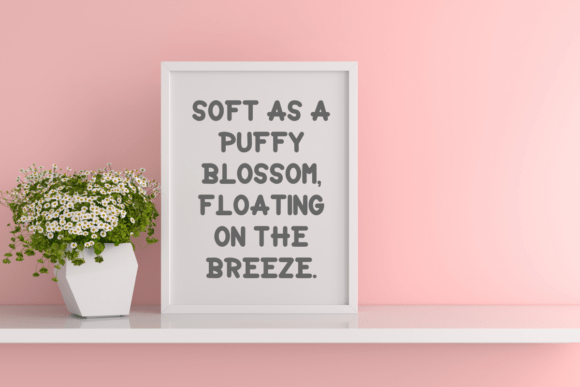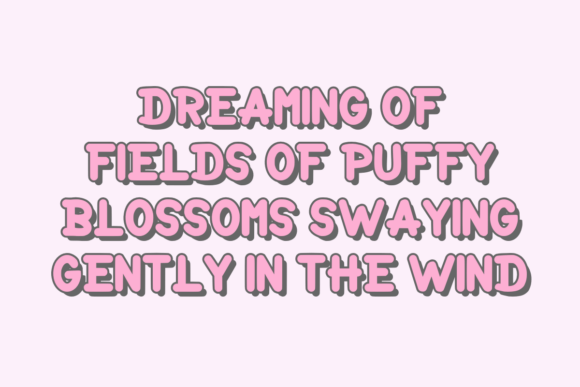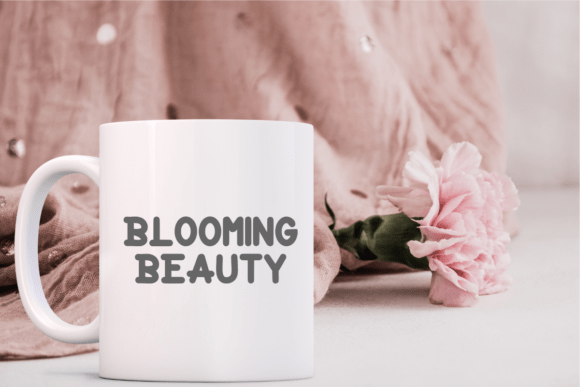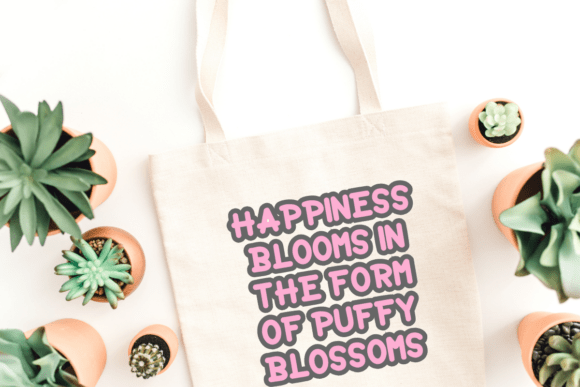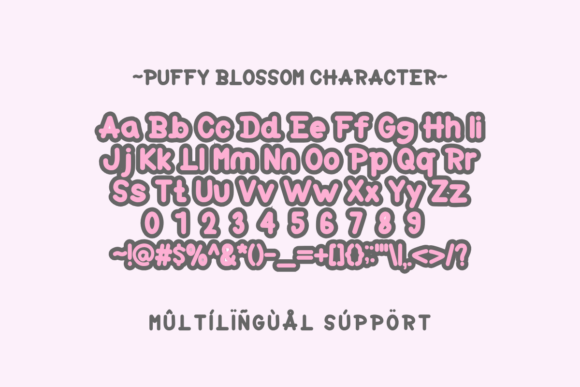
Introduction to Puffy Blossom Font Font
Fonts play a crucial role in design, and the Puffy Blossom Font font is a typeface that brings both character and versatility to any project. Whether you’re working on a branding project, a website, or a print design, the Puffy Blossom Font font offers a unique style that can elevate your work.
Puffy Blossom is a delightfully chunky handwritten font bursting with cuteness and charm.
With its bubbly, bold strokes and playful shadow effect, it brings a cartoon-like feel thatβs perfect for childrenβs projects, kawaii branding, fun stickers, and cheerful social media graphics Itβs sweet, soft, and full of fun personality.
Key Features of Puffy Blossom Font Font
Why Choose Puffy Blossom Font Font?
The Puffy Blossom Font font is more than just a typeface β it’s a design tool that helps you communicate your message with style and clarity. Its unique character set and versatile design make it suitable for a wide range of applications, from elegant invitations to bold headlines.
With its carefully crafted letterforms and balanced proportions, the Puffy Blossom Font font ensures readability and visual appeal across all mediums.
What makes Puffy Blossom Font font special?
The Puffy Blossom Font font stands out with its unique design, exceptional readability, and versatility across various design applications.